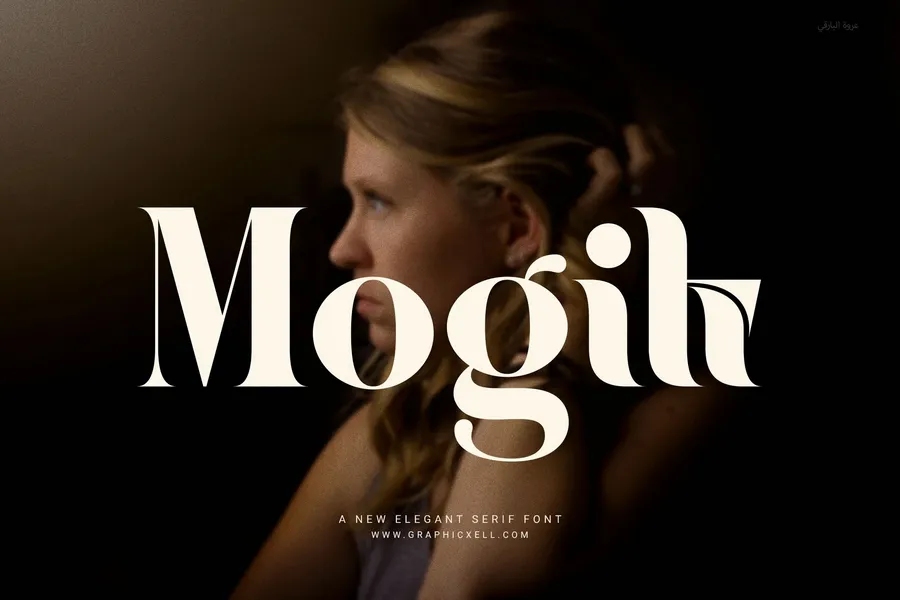
Mogik Elegant Serif Font – Classic & Stylish
Mogik is an elegant serif font made to add a timeless and clean look to your projects. It blends classic serif style with simple shapes, making it a great choice for many uses. Whether you design logos, magazines, invitations, or product packaging, Mogik brings style and clear text to your work.
This font is easy to read but still looks stylish. Its smooth lines and balanced letters help your words stand out while keeping a neat and polished feel. Because it is flexible, Mogik fits well in headlines and long text, working smoothly on both print and digital screens.
Also, Mogik works well with sans serif fonts, so designers have more ways to mix and match fonts. With soft curves and fine serifs, this font feels elegant but not old-fashioned.
The font family offers different weights to keep your design balanced and clear. You can make bold titles or gentle supporting text with Mogik. Its simple yet stylish design helps your message look professional and friendly.
Key features include:
Multiple weights for easy design use
Elegant serif style with clear shapes
High readability on paper and screens
Great for branding, editorial, invitations, and packaging
In short, Mogik is a useful and stylish serif font that lifts any project with clear and elegant text. If you want a font that mixes classic looks with modern needs, Mogik will fit perfectly.